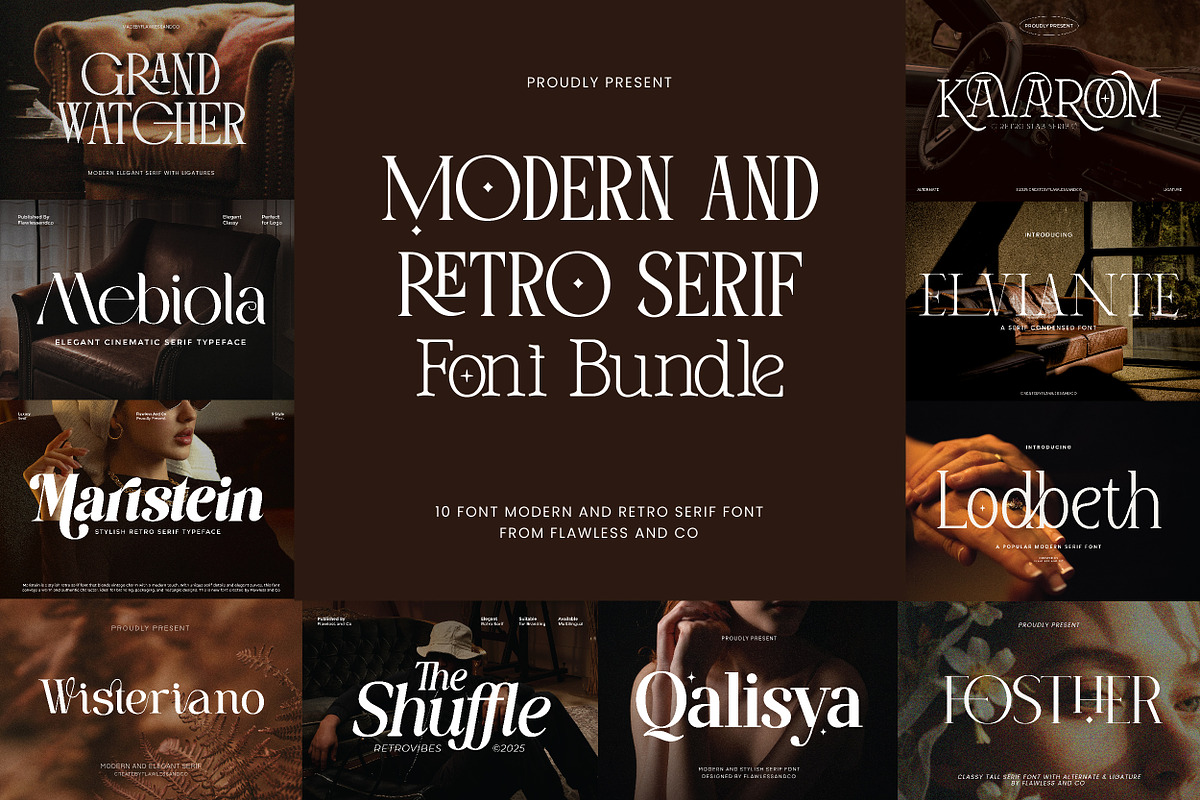
Introducing the Modern and Retro Serif Font Bundle, a carefully curated collection of fonts meticulously designed to bring nostalgic charm, timeless character, and contemporary versatility directly to your creative projects. Each font in this exclusive bundle features distinct retro-inspired letterforms, modern visual aesthetics, and distinctive styling that creates a memorable visual impact while maintaining a fresh and modern appeal. These fonts seamlessly combine classic retro aesthetics with modern design sensibilities, making them ideal for projects that require warmth, personality, and an authentic vintage-inspired style. Whether you’re working on branding, packaging, editorial layouts, café identities, fashion campaigns, social media content, or promotional materials, this bundle provides versatile fonts that add character and timeless appeal to every design.
Unleash Your Creativity with 10 High-Quality Fonts
This comprehensive bundle includes 10 high-quality modern and retro fonts, each carefully crafted to deliver stylish and eye-catching visuals. They are suitable for a wide range of design purposes such as branding, logos, packaging, posters, magazine layouts, product labels, merchandise, social media graphics, advertising materials, lifestyle projects, and more. You can rely on this collection to elevate your designs with a touch of nostalgic elegance and modern sophistication.
The bundle includes the following versatile typefaces:
Explore the Versatility of the Bundle
Each font in this collection offers unique characteristics that allow you to mix and match styles to create dynamic and engaging designs. From elegant serif styles to more experimental forms, these fonts provide the flexibility needed to adapt to various design contexts while maintaining a cohesive visual language. Use them for headlines, body text, or decorative elements to add depth and interest to your projects.
Designed with both aesthetics and functionality in mind, this font bundle comes loaded with advanced features that empower you to create polished, professional designs. These features ensure that you have the tools necessary to execute your creative vision with precision and style.
- Uppercase & Lowercase: Full character sets for complete typographic control.
- Alternates & Ligatures: Enhance your designs with unique letterform variations and connected characters that add a custom, hand-crafted feel.
- Numerals & Punctuation: Comprehensive number sets and punctuation marks to ensure accuracy and readability in all your text.
- Multilingual Support: Extensive language support to cater to a global audience, ensuring your designs resonate with users across different regions and languages.
Who Should Use the Modern and Retro Font Bundle?
The Modern and Retro Font Bundle is ideal for designers, creatives, entrepreneurs, and brands looking for typography that combines vintage aesthetics with modern versatility. It’s especially suited for projects that require nostalgic visual appeal, bold character, and timeless style. If you want to make a lasting impression, this bundle is your perfect companion.